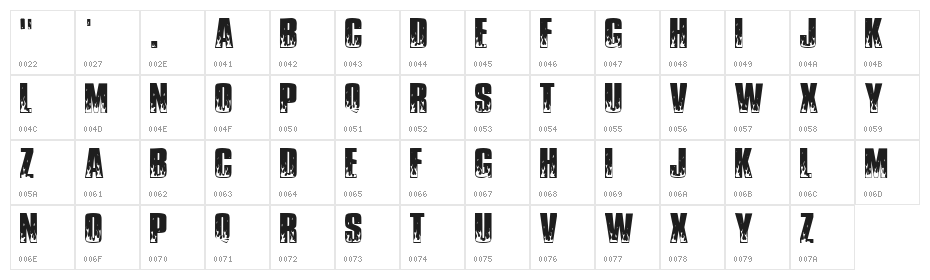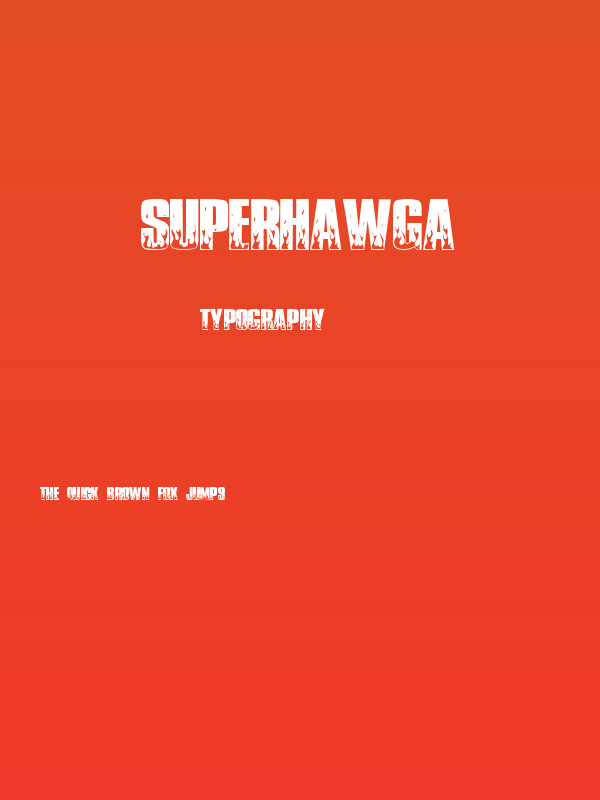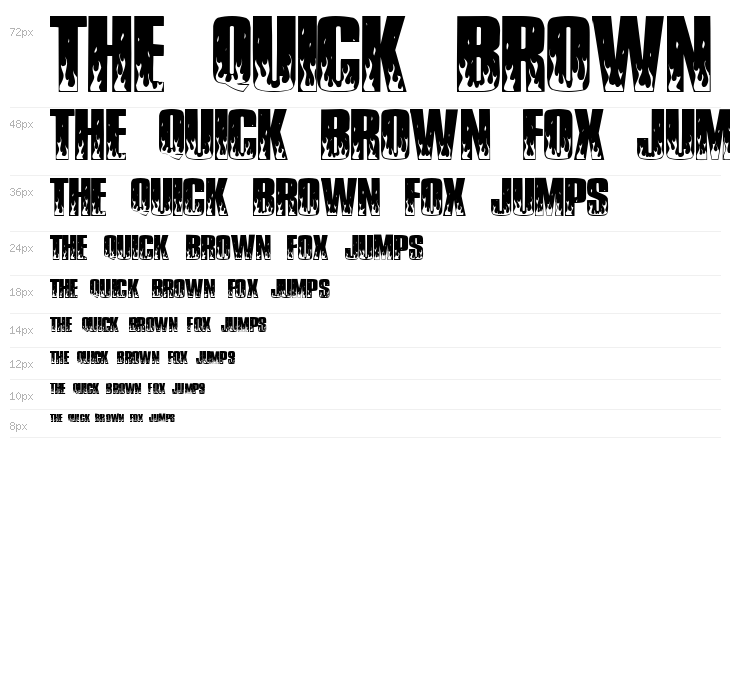
SuperHawgA Font
SuperHawgA Description
This font features a bold and striking design with a unique flame motif integrated into each character. The uppercase letters are robust and commanding, with flames licking upwards from the base, creating a dynamic and energetic appearance. The style is highly decorative, making it ideal for attention-grabbing designs. The absence of lowercase letters and numbers suggests a focus on impactful, headline-style text. The overall look is modern with a touch of rebellious flair, suitable for projects that require a bold statement.
| Proposed Projects | Perfect for event posters, music album covers, branding for extreme sports, or any project needing a bold, fiery aesthetic. |